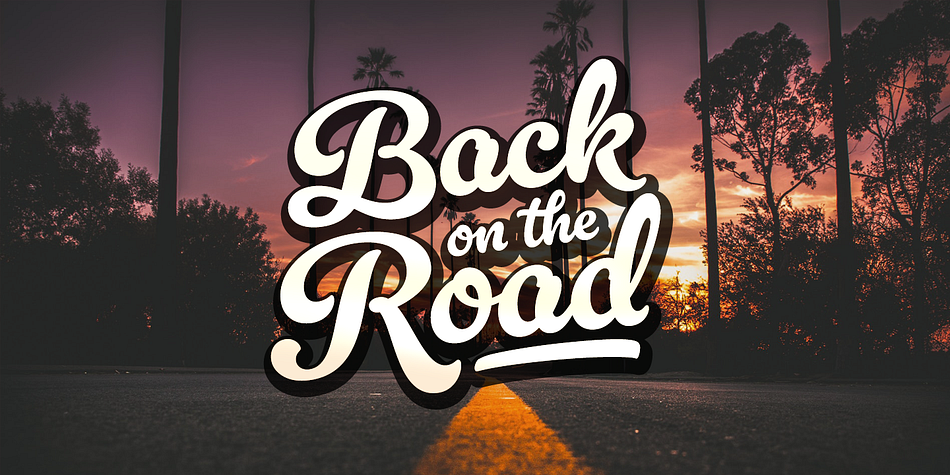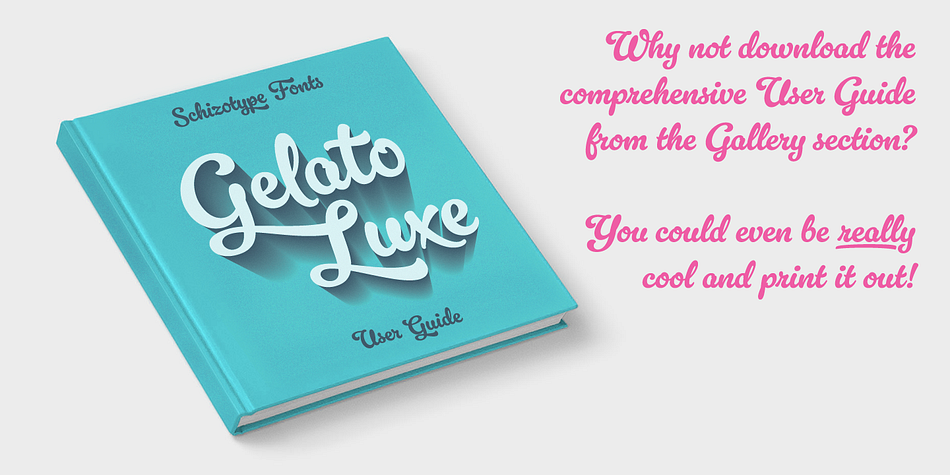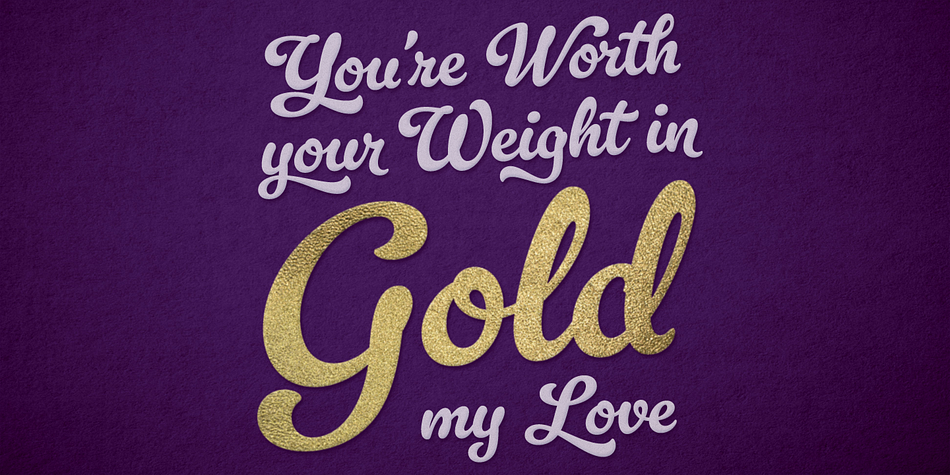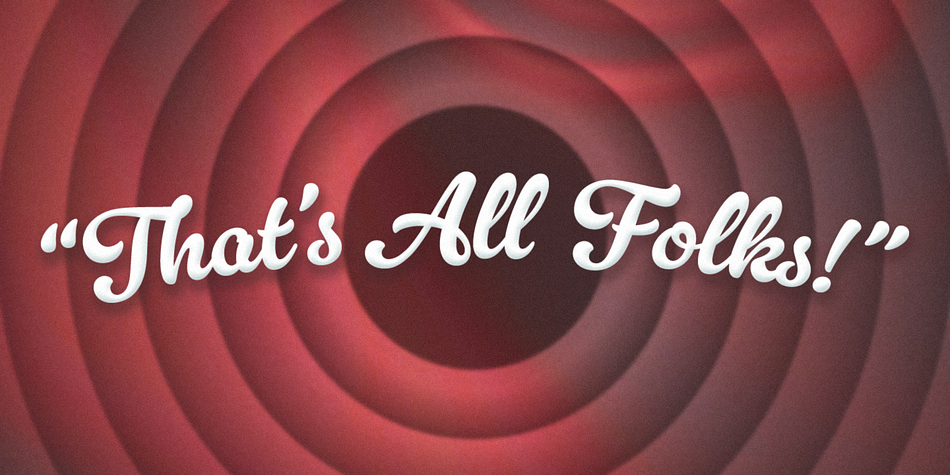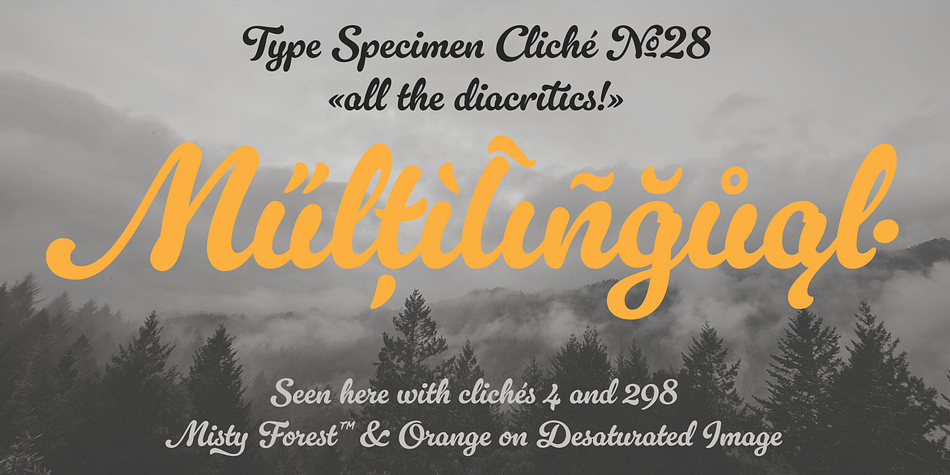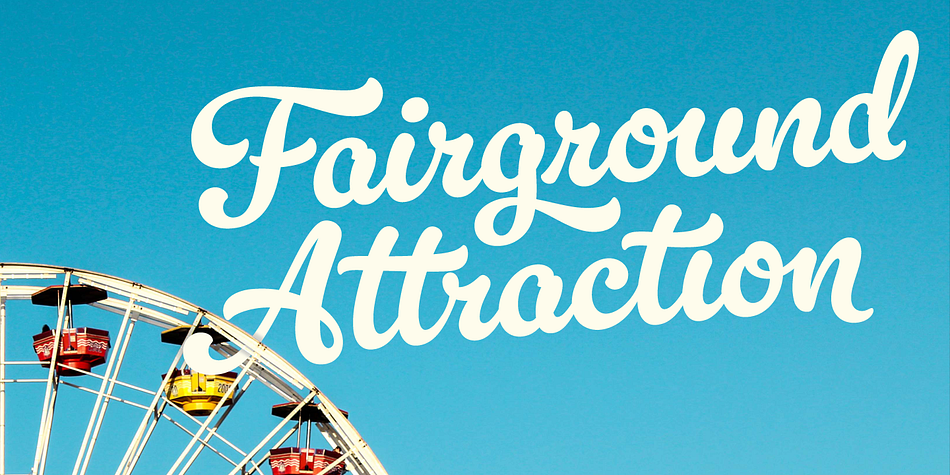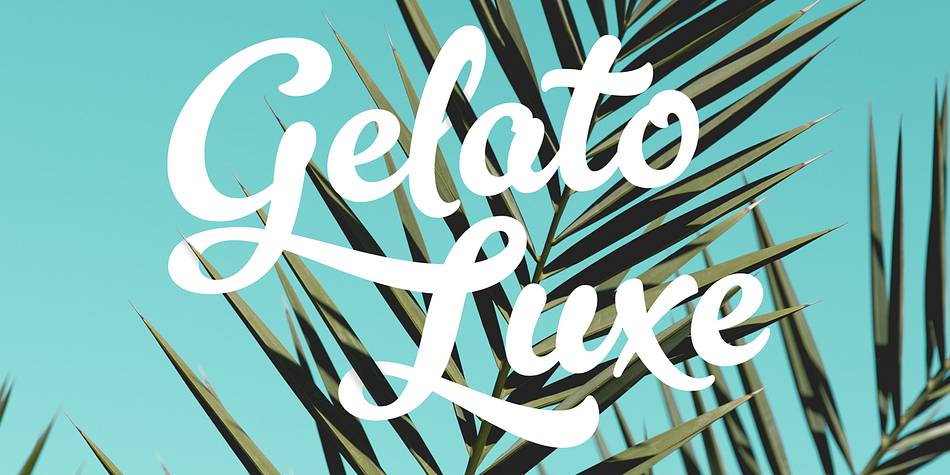
Designed by Dave Rowland, Gelato Luxe is a brush script font published by Schizotype Fonts.
Back in 2011, Gelato Script was released, and soon became a best-seller. It has remained popular, appearing on everything from designer handbags to primetime TV shows; from food blogs to wedding invitations; from glossy magazines to (not so imaginatively!) ice cream shops.
All these years on, and it struck me that there is much that could be improved on; there are certain glyphs that never quite felt right. So I decided to update Gelato Script, and this is the result, Gelato Luxe. What started as a simple update quickly spiralled into a total overhaul. There is not a single glyph in the new version that’s gone unchanged. The entire font has been tweaked and tinkered with and redrawn and respaced and rekerned to get it to this point. While I wanted to maintain the feel of Gelato Script, Gelato Luxe represents a massive leap in sophistication, with new alternates for smoother connections, and a totally new OpenType engine, with no fewer than seventeen stylistic sets.
Gelato Luxe is a truly versatile script font. You can effortlessly change the feel by playing with the many OpenType features. Make sure contextual alternates and standard ligatures are switched on, and it will work like a charm right out of the box. See the user guide in the gallery section for an explanation of all the features.